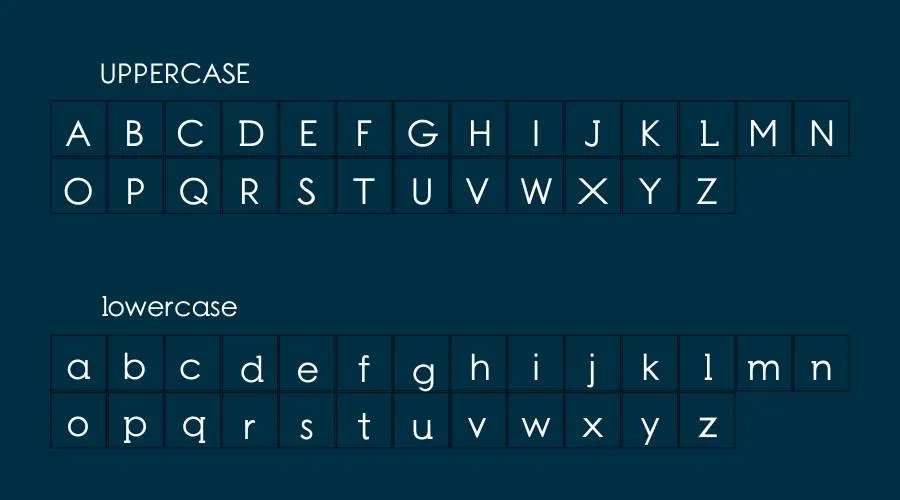
Myanmar Font
About Myanmar Font
In this post, going to introduce to you a very elegant and good-looking typeface called Myanmar font. This font is totally free and can be utilized on various working systems PC, laptop, windows, and android apps. It was invented by a famous graphic designer named John Hudson and is under the category of the Sans serif texture family.
The online generator or converter tool of this typeface will help you to convert all your normal types of the alphabet set into stylish and modern shapes. After it was published in the font world, it gained popularity in a very short time due to its neat and attractive texture look appearance.